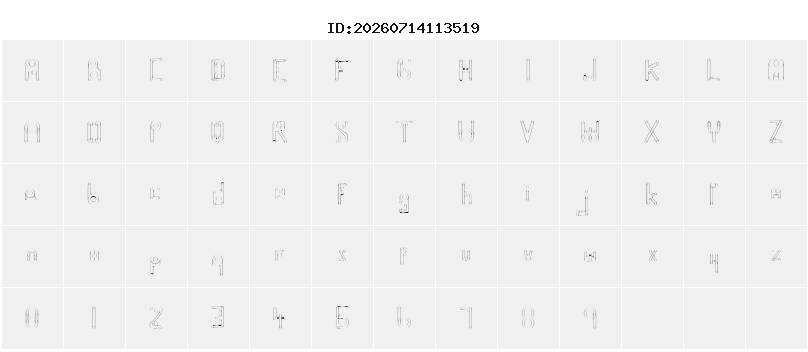
HelenBrown Outline Preview
• Font Name: HelenBrown Outline
• Font ID: BradleyConsultingLtd: HelenBrown Outline: 2008
• Full Font Name: HelenBrown Outline
• Version: Version 1.000 2008 initial release
• PostScript Name: HelenBrownOutline
• Character Count: 76
• Designer: Robert G Walsh
• Manufacturer: Bradley Consulting Ltd
About HelenBrown Outline.ttf
HelenBrown Outline.ttf is a modern, elegant sans-serif font designed for ultimate readability and visual harmony. Perfect for branding, headlines, web design, and print materials.